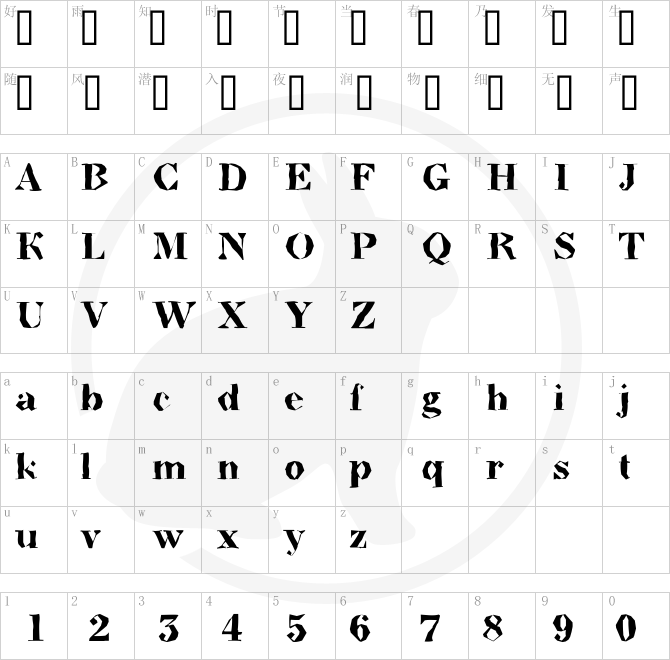
- Font Name:a_BodoniNovaBrk
- Subfamily:Macromedia Fontographer 4.1 a_BodoniNovaBrk Bold
- Full Name:a_BodoniNovaBrk Bold
- PostScript:ABodoniNovaBrkBold
a_BodoniNovaBrk-Bold.ttf is a very beautiful artistic font, a_BodoniNovaBrk-Bold.ttf is widely used in the design and printing of various books and pictures,a_BodoniNovaBrk-Bold.ttf has a strong visual impact,a_BodoniNovaBrk-Bold.ttf is a commonly used font in newspapers, magazines and books, and is used in posters, e-commerce Poster design, store design, logo design, font design and other fields.a_BodoniNovaBrk-Bold.